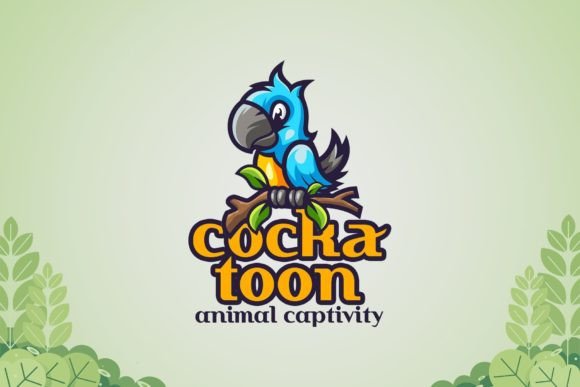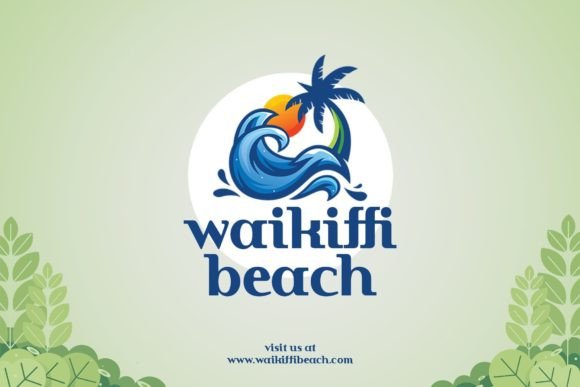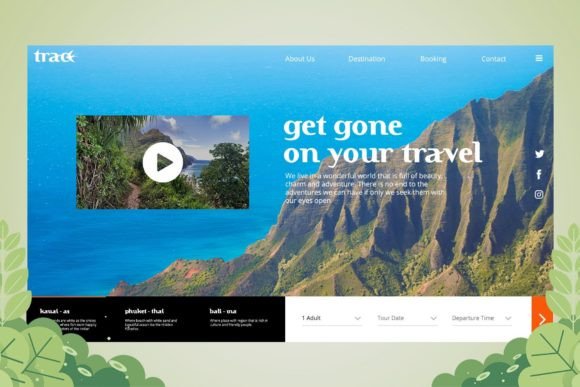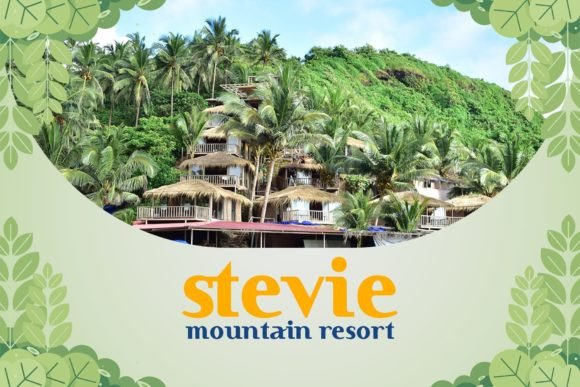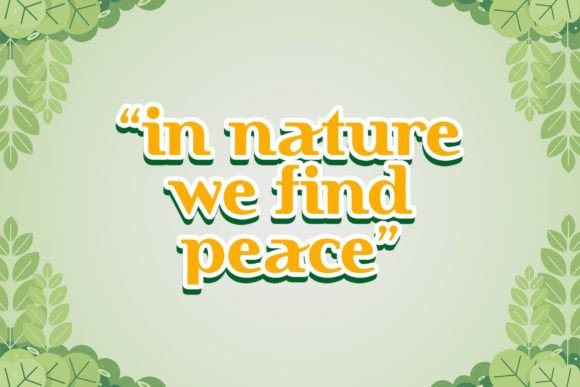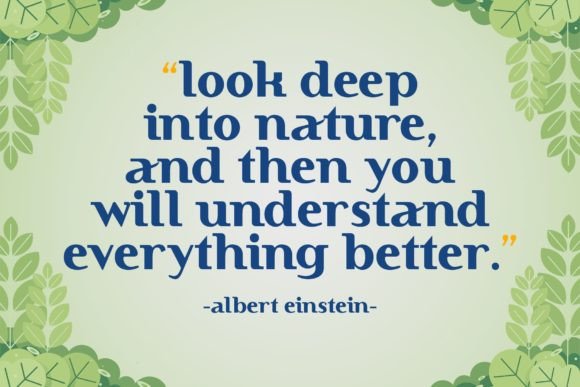
Introduction to Posena Font Font
Fonts play a crucial role in design, and the Posena Font font is a typeface that brings both character and versatility to any project. Whether you’re working on a branding project, a website, or a print design, the Posena Font font offers a unique style that can elevate your work.
Posena is a natural and fresh serif font.
Key Features of Posena Font Font
Why Choose Posena Font Font?
The Posena Font font is more than just a typeface – it’s a design tool that helps you communicate your message with style and clarity. Its unique character set and versatile design make it suitable for a wide range of applications, from elegant invitations to bold headlines.
With its carefully crafted letterforms and balanced proportions, the Posena Font font ensures readability and visual appeal across all mediums.
What makes Posena Font font special?
The Posena Font font stands out with its unique design, exceptional readability, and versatility across various design applications.